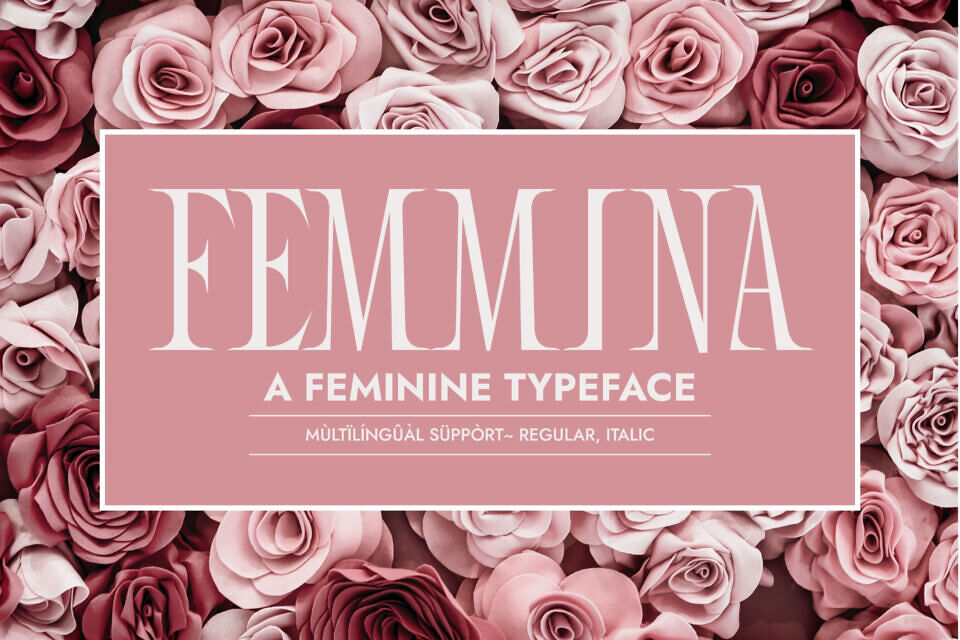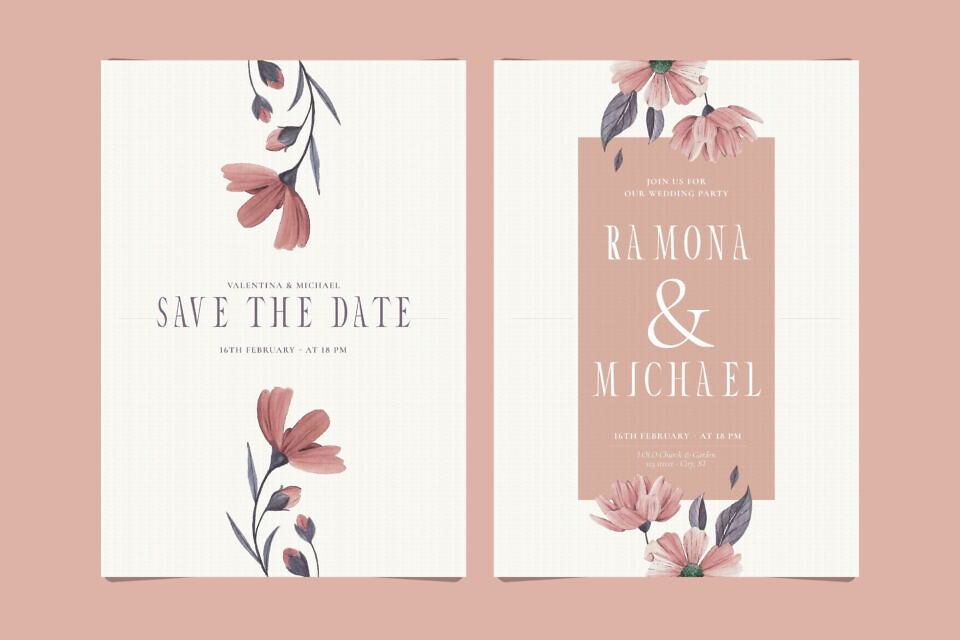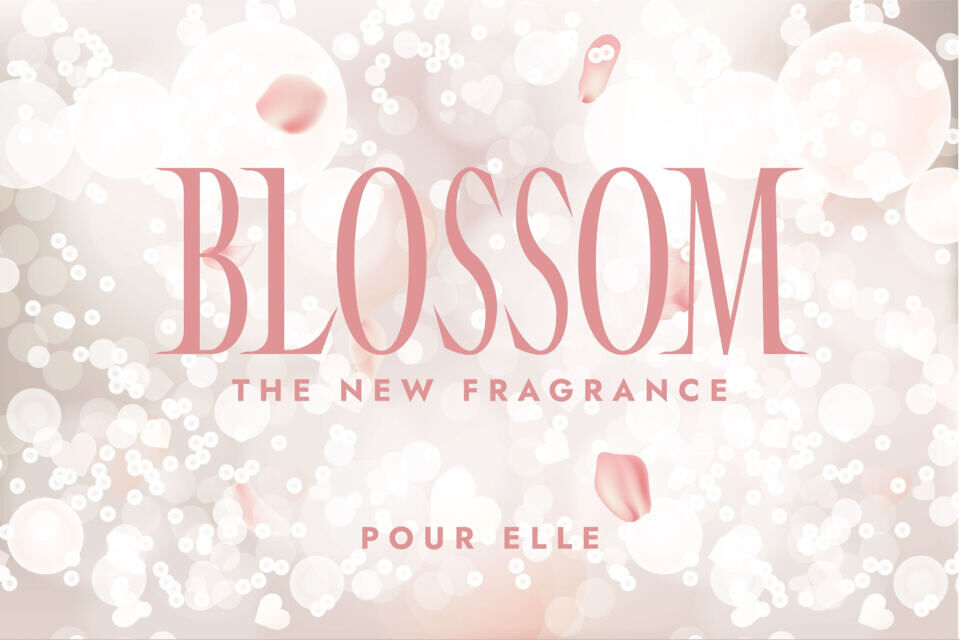
Femmina is a cute serif font specially crafted to assist any women-related designs. Use it on your perfume, cosmetics, packaging, social media posts, magazine covers, and more, and you will notice how it makes them come to life!